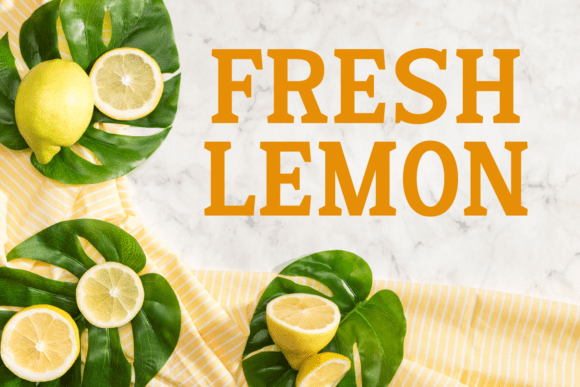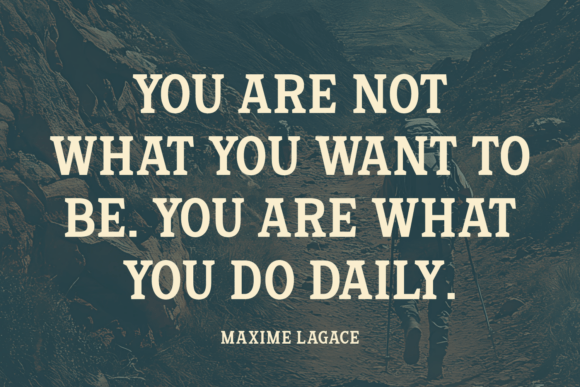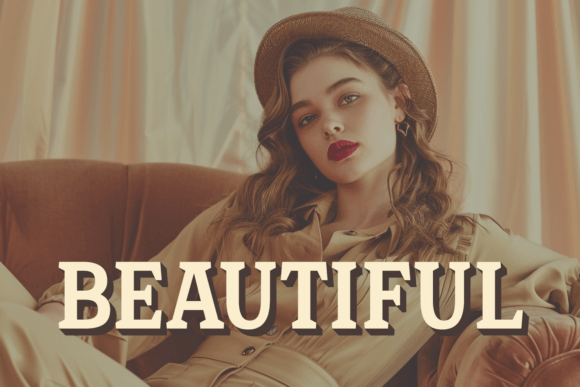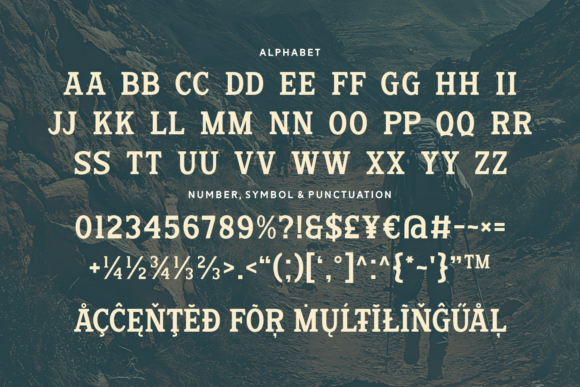
Introduction to Silent Generation Font
Silent Generation is a unique and classic slab serif font.
With its strong, solid presence and nostalgic charm, Silent Generation It is perfect for any branding project such as logotypes, t-shirt printing, headlines, and creative products No matter the topic, this font will be an incredible asset to your fontsโ library, as it has the potential to elevate any creation.
Key Features of Silent Generation Font
Why Choose Silent Generation Font?